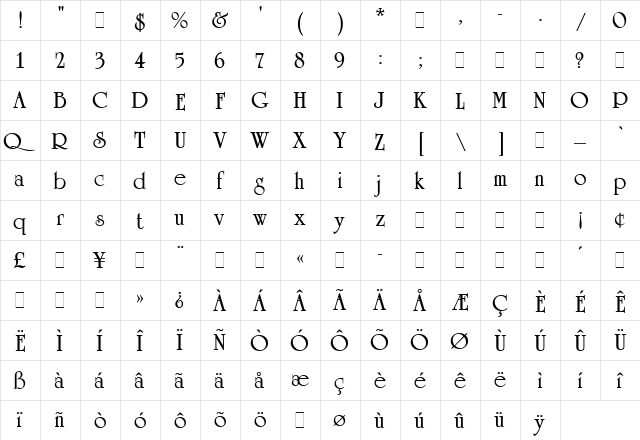
UniversityRoman-Bold Bold
Design Context for UniversityRoman-Bold Typeface
UniversityRoman-Bold is a composed and adaptable typeface that performs quietly and consistently across a wide range of design contexts. Its bold stroke weight gives it real presence on the page.